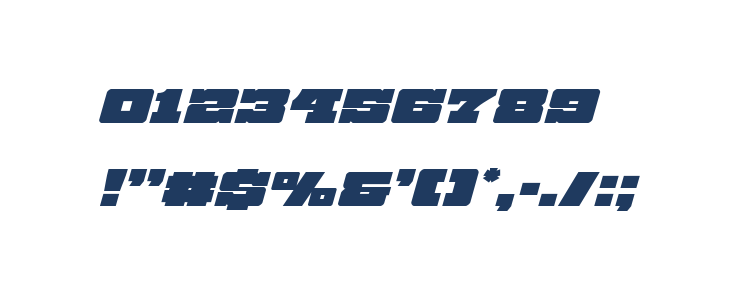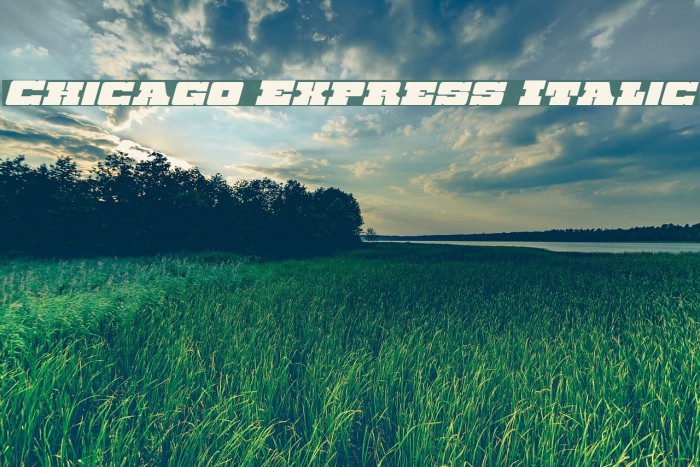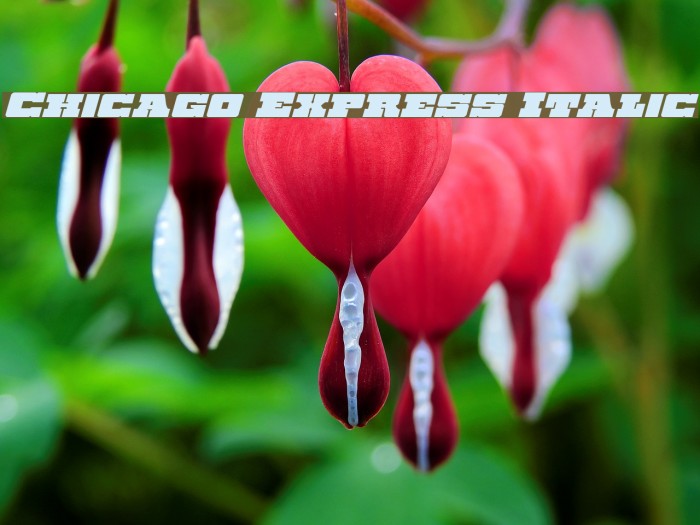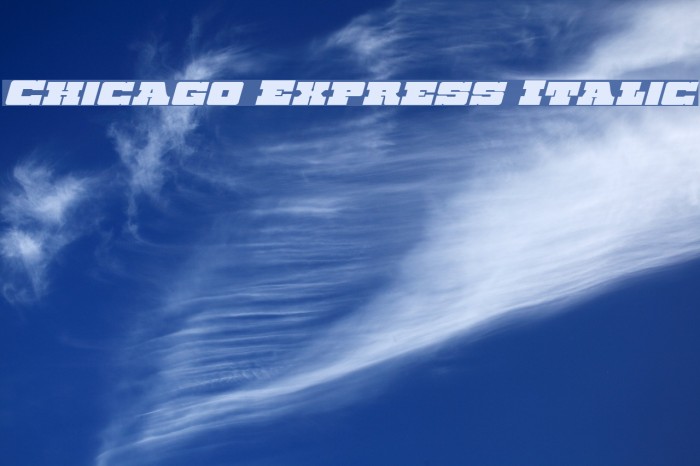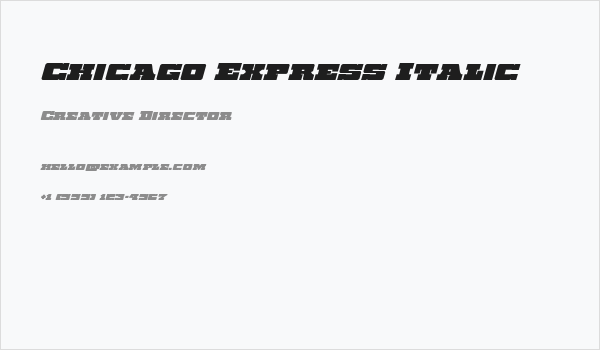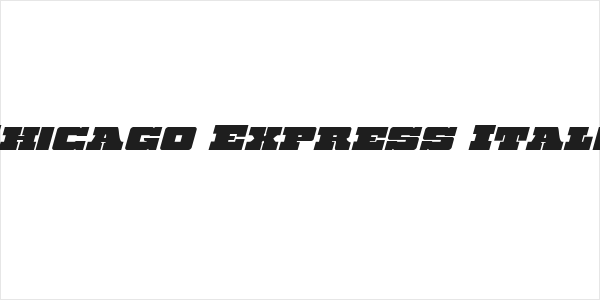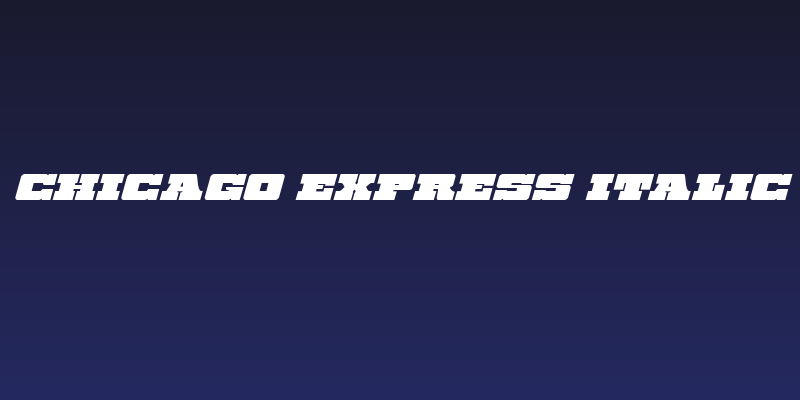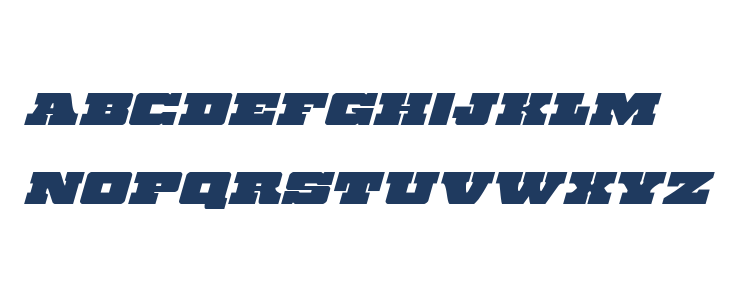
Chicago Express Italic Font
Chicago Express Italic Description
This font features a bold, italicized style with a strong presence. The characters are designed with a distinct slant, giving them a dynamic and forward-moving appearance. The bold weight of the letters ensures high visibility and impact, making it suitable for attention-grabbing headlines or titles. The angular cuts and sharp edges add a modern and edgy feel, while the consistent stroke width across characters maintains a uniform look. The spacing between characters is relatively tight, enhancing the compact and cohesive appearance of the text.
| Proposed Projects | Ideal for sports branding, dynamic posters, action-themed graphics, and bold headlines. |